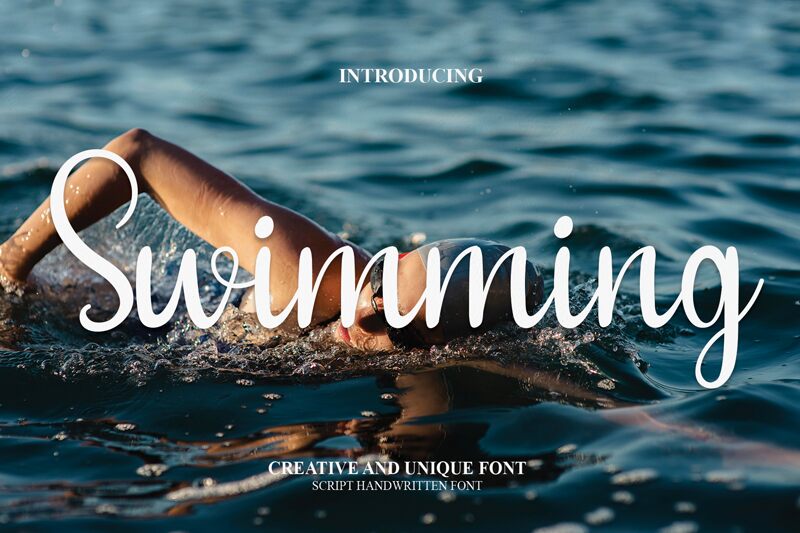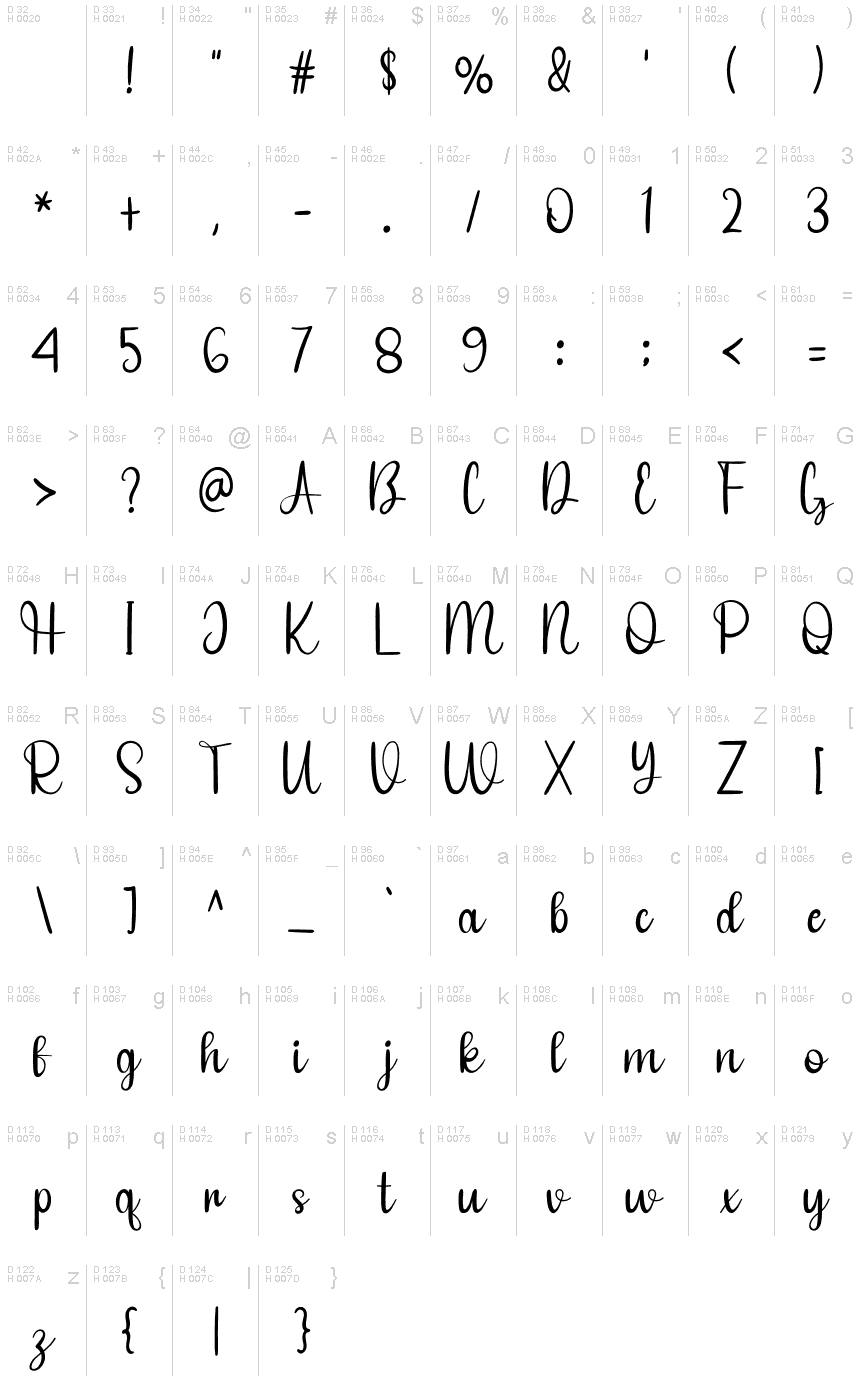
Swimming
Swimming, the latest semi-light handwritten font from Belina Studio, is a delightful addition to any design project. Its clean and legible strokes make it perfect for various creative works such as branding, social media graphics, packaging design, product labels, and more. With its organic feel and playful characters, this font typeface is ideal for showcasing your artistic side. This font intro will make sure that your content gets the attention it deserves while adding a personal touch to your projects. Dive into the world of Swimming and see how it can elevate your designs!
the latest style letters are perfect for wall displays, wedding invitations, social media post logos, advertisements, product packaging, product designs, labels, photography, watermarks, invitations, stationery, and any project that requires taste handwriting.